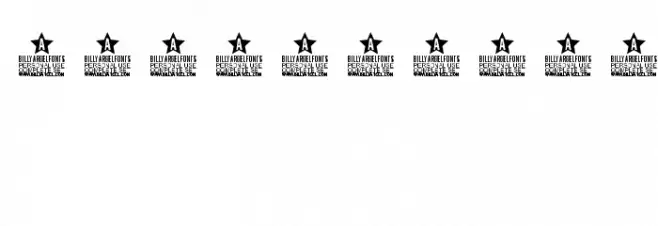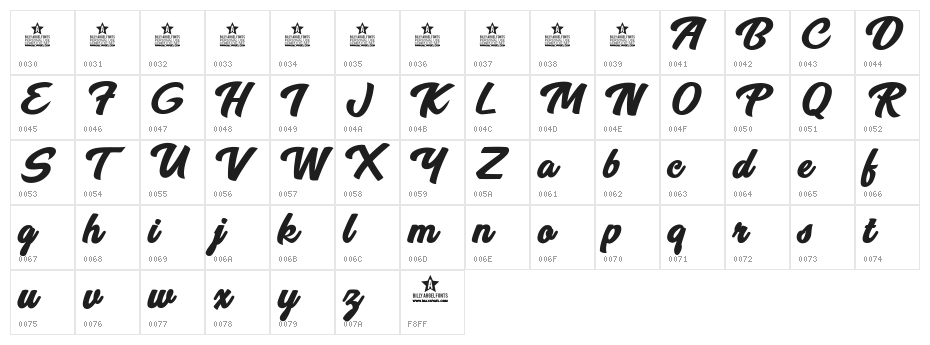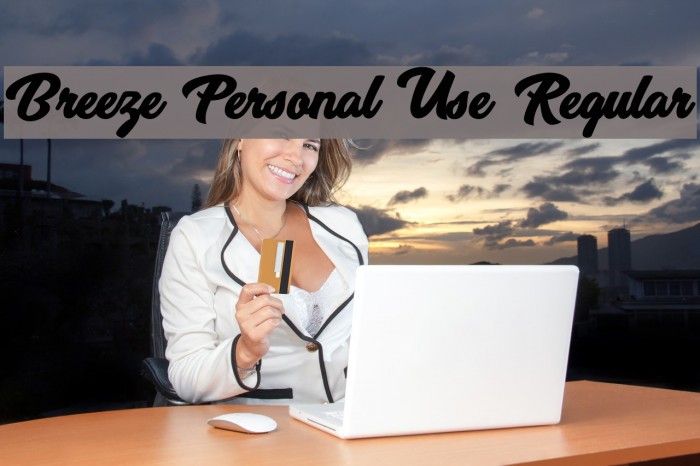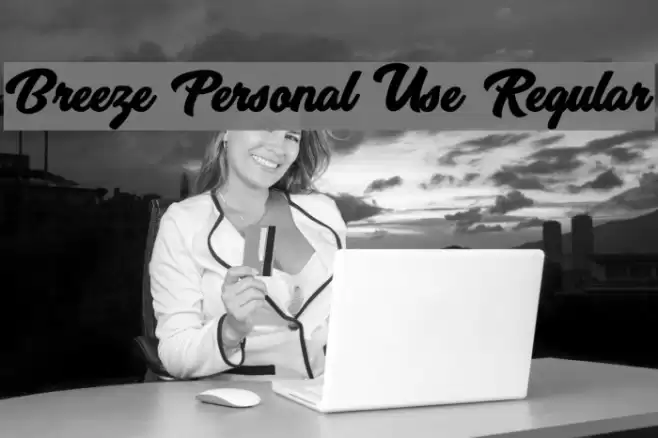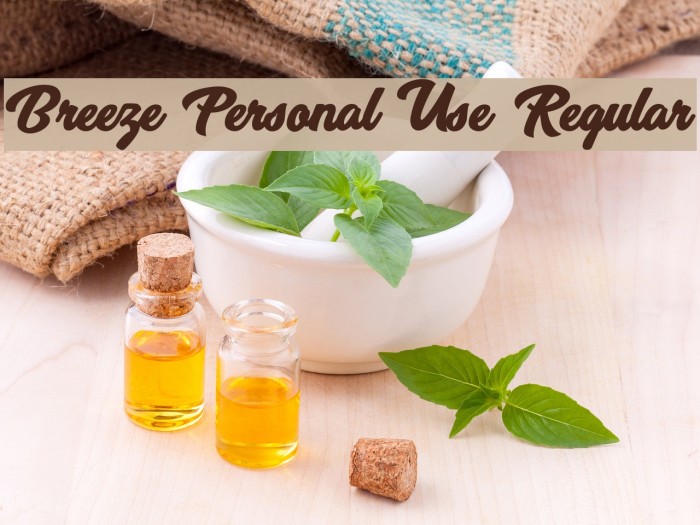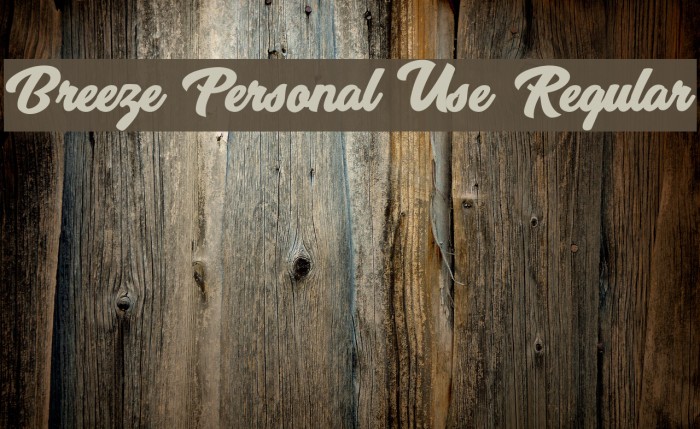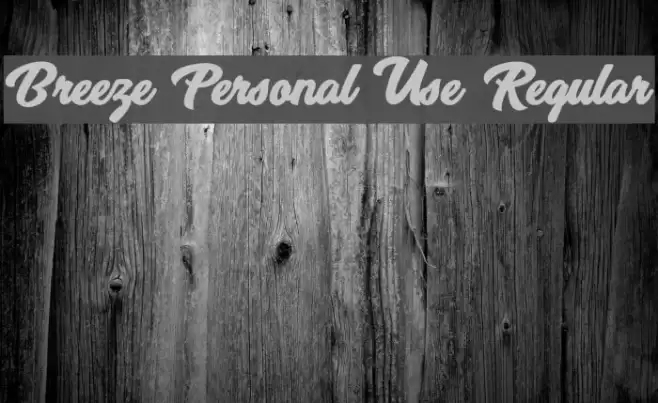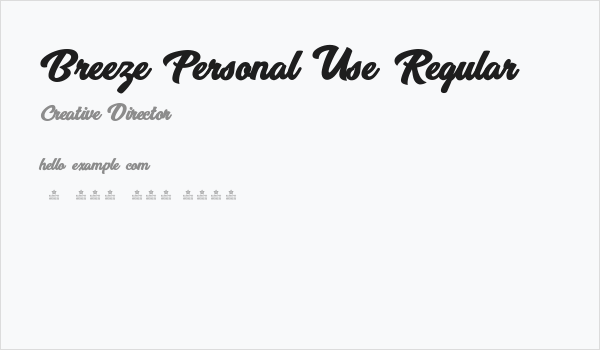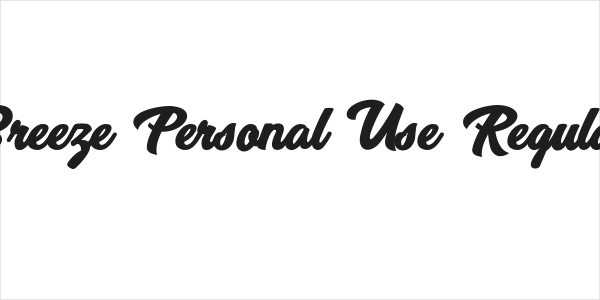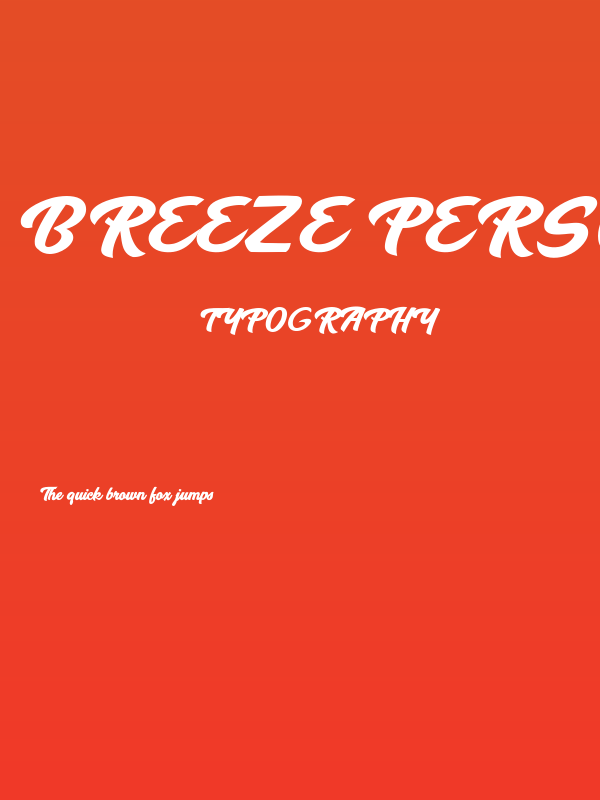
Breeze Personal Use Regular Font
Breeze Personal Use Regular Description
This font features a bold and flowing script style, characterized by its smooth, connected strokes and elegant curves. The uppercase letters are slightly more upright, while the lowercase letters exhibit a more pronounced slant, adding to the dynamic and fluid appearance. The overall design is reminiscent of classic calligraphy, yet it maintains a modern touch with its clean lines and balanced proportions. The font's bold weight ensures strong visibility, making it suitable for various display purposes. Its cohesive and stylish look makes it ideal for creating eye-catching headlines, logos, and branding materials.